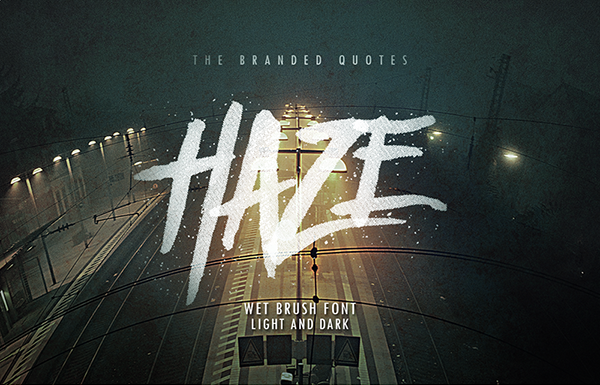
Preview and download Haze Font. Created by The Branded Quotes in Script Brush styles with Demo license.
Personal Use Only. For the numerals and punctuation purchase the licensed version through this link: https://sellfy.com/p/0TgP/ About this font: Haze is a wet brush font with splatters all over its glyph and bears its own watercolor texture. The structures are fully randomized thus creating unique mind-bugging effect to words. 100% fully printable on shirts and products! Band logo, book cover, restaurant logo, album covers and brand identity are just a few which will be served by this one of a kind Typeface! Haze Light - The brighter version of Haze that produces a more wet look to words. Alternates are in the Uppercase. Haze Dark - Heavier look and solid splatters are on this version. Edges are more rough and its alternates are interchanged to the Lowercase of the Light version. Enjoy! |